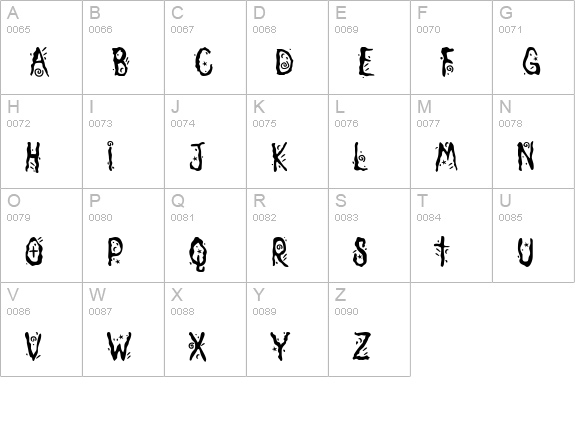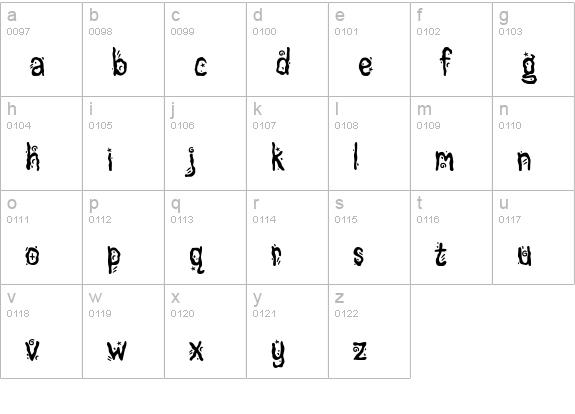
Magician Font Details
Introducing Magician, a mesmerizing font that will enchant your designs with its captivating charm. This whimsical typeface is perfect for adding a touch of magic to any project, whether it's a logo, branding materials, or even a mystical poster. With its elegant and flowing lines, Magician effortlessly combines sophistication and playfulness. Every letter is carefully crafted to create a sense of wonder and intrigue, making this font truly spellbinding. Whether you're creating a magical-themed event invitation or a fantastical book cover, Magician will transport your audience to a world of enchantment. And the best part? Magician is available for free download at FontsMarket.com. That's right – you can add this extraordinary font to your collection without spending a dime. Simply head over to FontsMarket.com and let the magic begin. Don't miss out on the opportunity to elevate your designs with Magician. Download this captivating font today and let your creativity soar to new heights. Get ready to cast a spell on your audience with Magician, the font that brings your imagination to life.